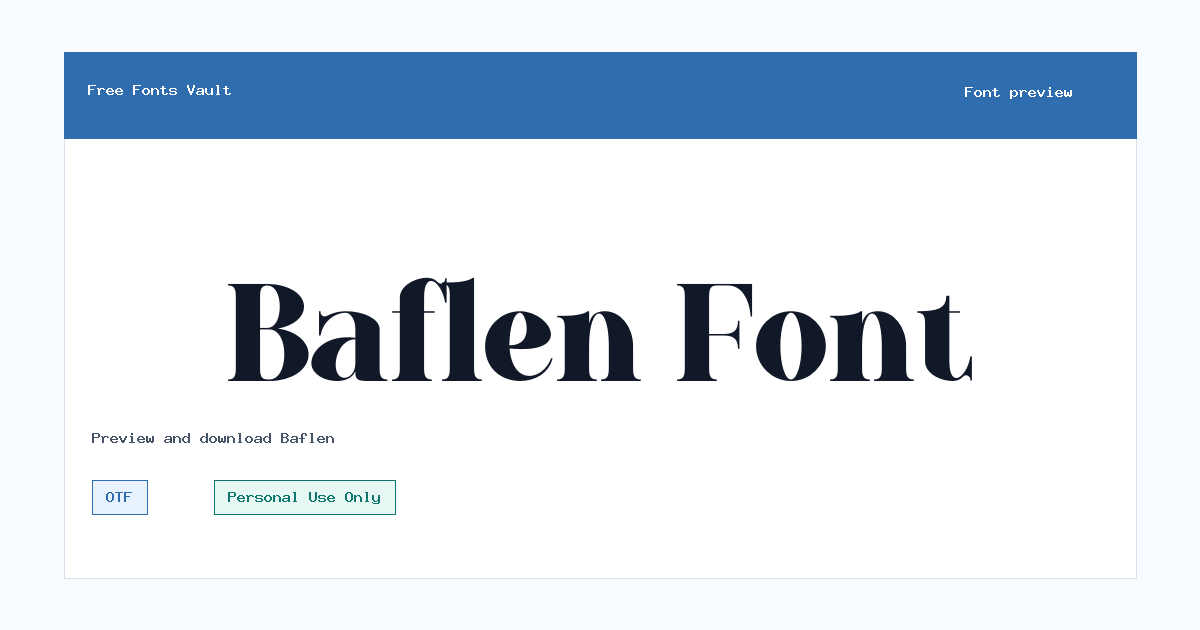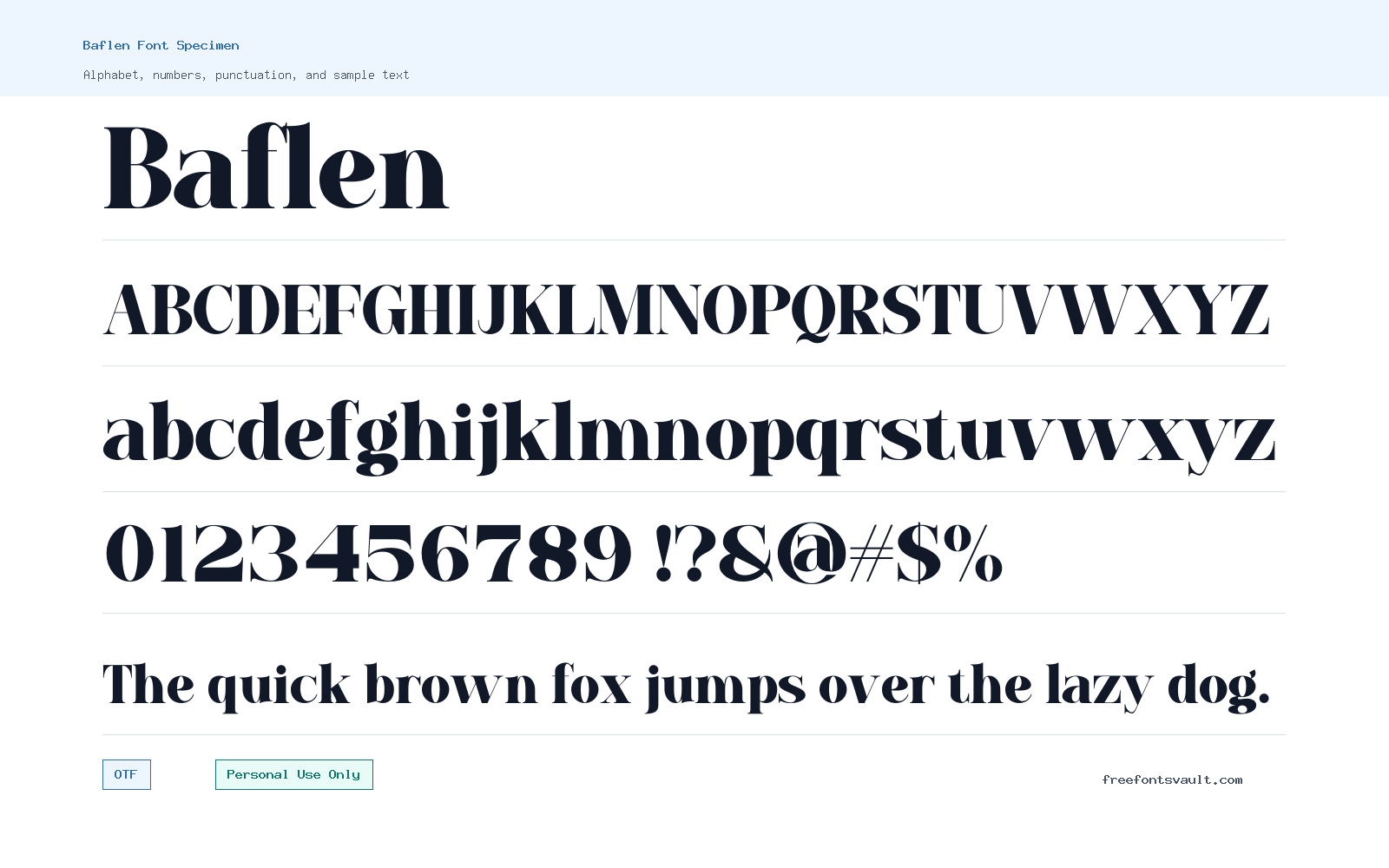
Baflen
- Designer Maikohatta
Baflen is a bold serif display font with strong contrast, rounded curves, and a polished headline look. It works best when you need short text to feel stylish without becoming too decorative.
About Baflen Font
Baflen has the feel of a modern display serif: thick vertical strokes, thin connecting details, soft curves, and sharp bracketed serifs. The uppercase letters look compact and confident, while the lowercase letters keep a heavy, editorial rhythm. In a large title, the font has a boutique, magazine-like character that can suit fashion graphics, beauty branding concepts, poster headings, invitations, packaging mockups, and social media title cards. It is not a quiet reading face; its value is in impact, shape, and contrast.
Use Baflen for names, headings, logos in personal mockups, quote graphics, and short promotional lines. It is better at large sizes than small body text, because the heavy strokes and tight visual texture can crowd together in long paragraphs. If you are testing it in the preview box, try both uppercase and lowercase words, then add numbers and punctuation. The font includes a regular OTF file, so most design apps should be able to install it easily. Pair it with a clean sans serif for captions, menus, or supporting copy so the display letters have room to stand out.
- Bold high-contrast serif style with thick strokes and fine details
- Strong display look for short titles, names, and graphics
- Readable at headline sizes, but too dense for long body copy
- Personal poster titles, quote cards, and social media graphics
- Fashion, beauty, boutique, and editorial-style mockups
- Invitations, packaging concepts, and decorative headings
- Logo drafts or brand concepts for personal testing only
What kind of font is Baflen?
Baflen is a bold display serif with high contrast and a stylish headline feel.
Can I use Baflen for body text?
It is better for short headings and display text. For paragraphs, use a simpler reading font and keep Baflen for emphasis.
Who designed Baflen?
The designer is listed as Maikohatta.